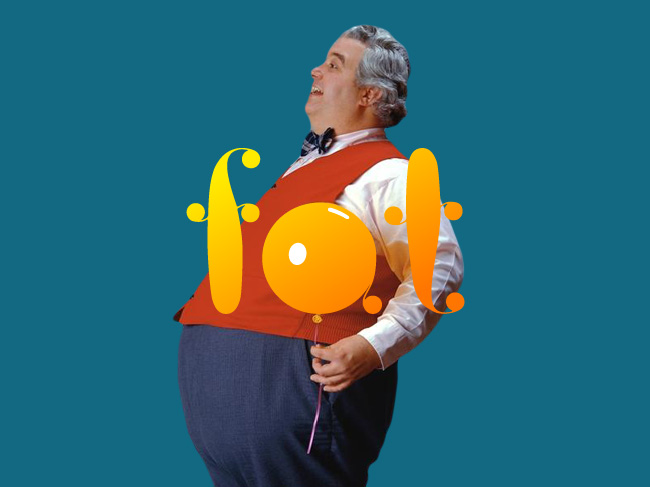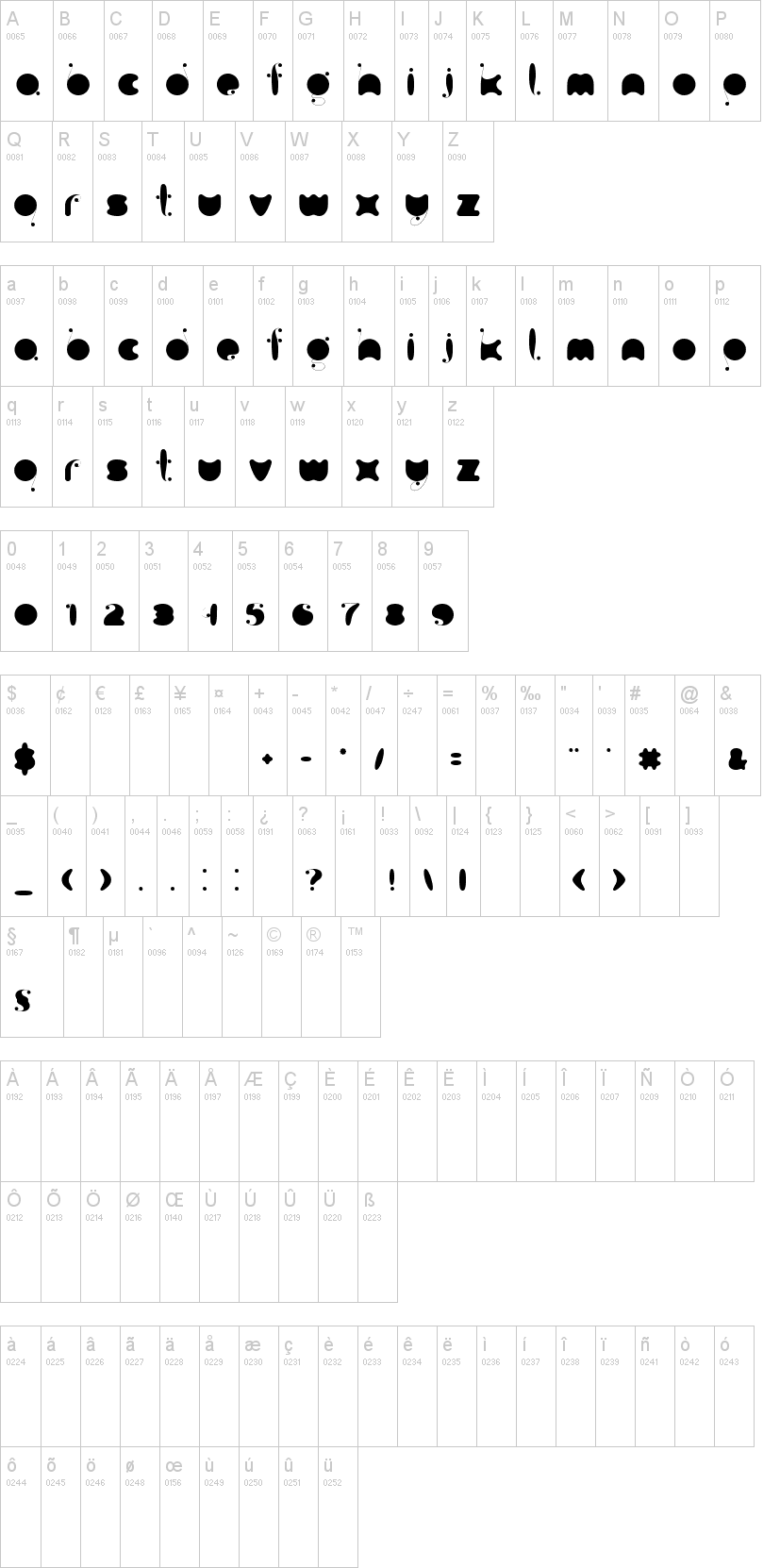
Note of the authorOne day I woke up and thought, why should not I make the font which used the perfect balance form with heavy black round and hair line, like Giambattista Bodoni.
This script is the most perfect balance. My font is fully rounded, because I believe that this positive effect